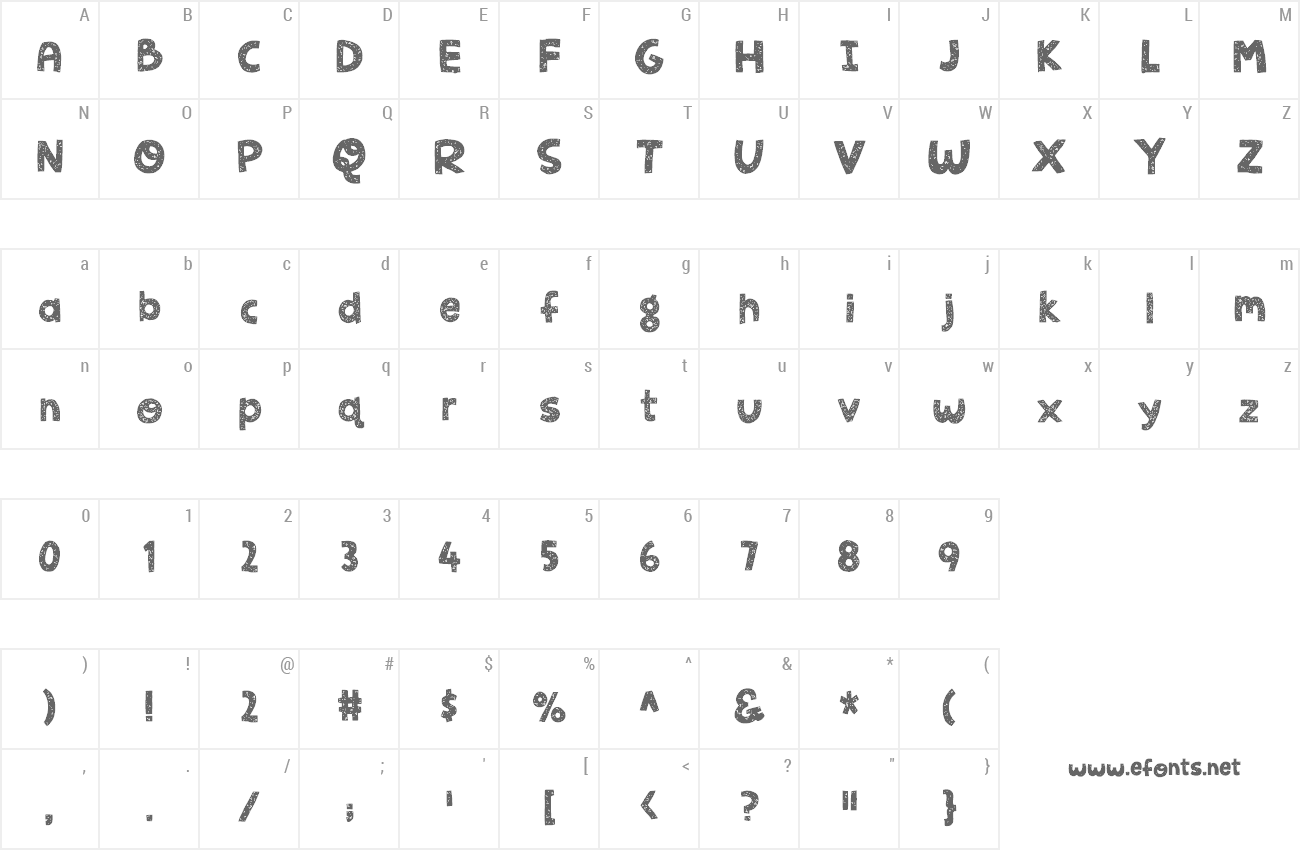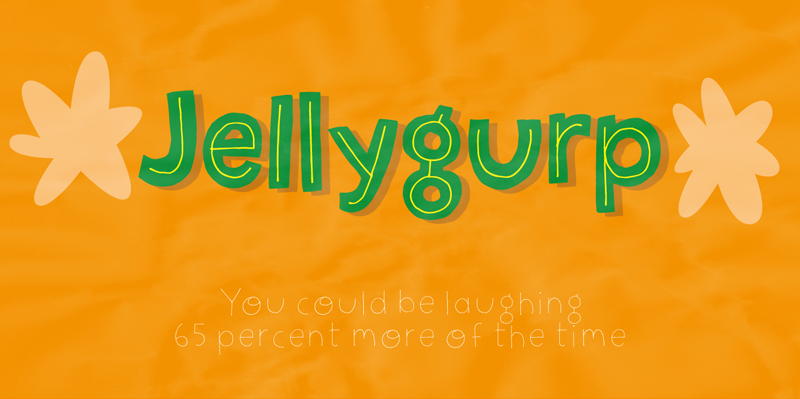
| Font name: | Jellygurp |
| Note by Pizzadude | |
Jellygurp is innocent and lovely at the same time - in a kinda cute clumsy way. Play around with the different layers, and make your own handmade-like designs! Jellygurp comes with ligatures for double letters such as aa bb cc dd ee ff gg - and more. It has even got alternate versions of all lowercase letters! :) |